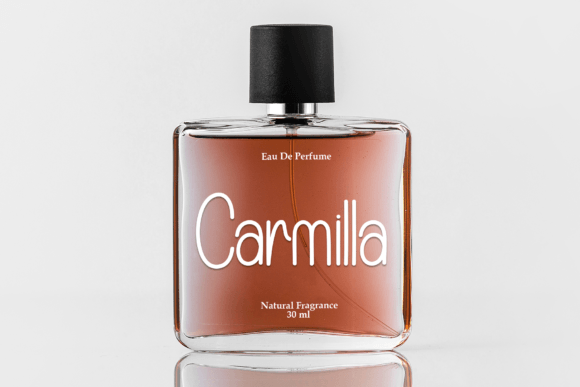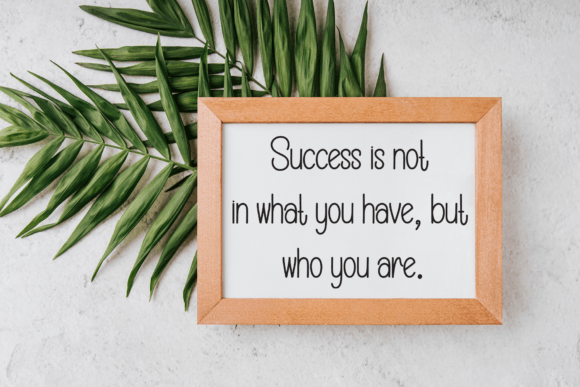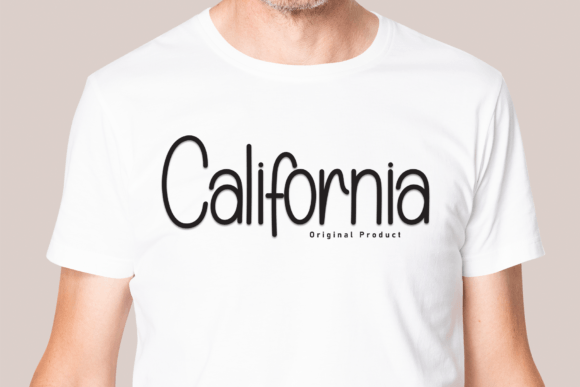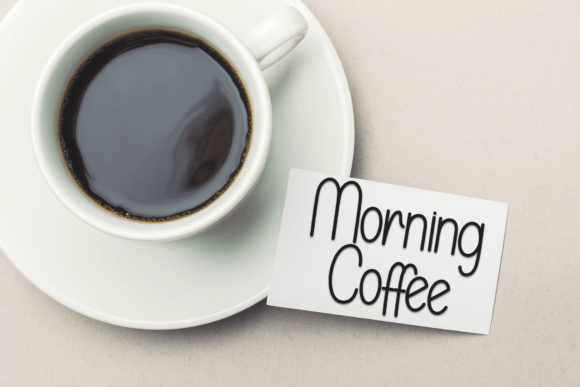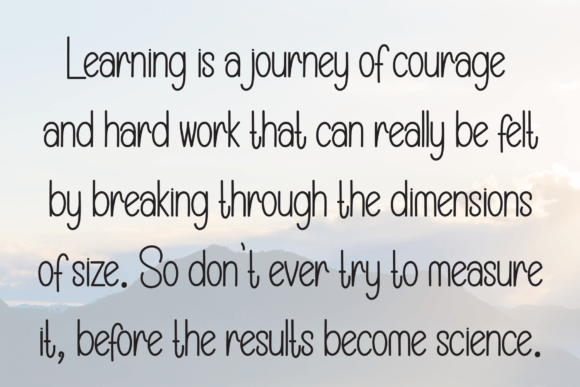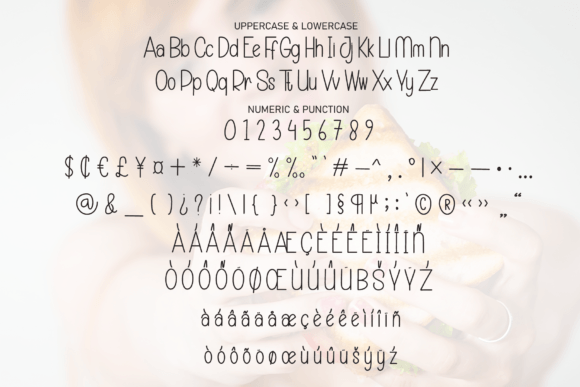
Discover the Delightful World of Happy Sandwich Font
Are you a fan of sandwiches and typography? Look no further than the Happy Sandwich Font, a unique and mouth-watering theme that combines the joy of freshly made sandwiches with the art of font design. In this article, we’ll dive into the world of Happy Sandwich, exploring its concept, features, and inspiration, as well as its appeal to designers and crafters.
What is Happy Sandwich?
Happy Sandwich is a delightful place where you can enjoy tasty, fresh sandwiches made just the way you like them. Each sandwich is made with care and a touch of happiness to brighten your day. The concept of Happy Sandwich is simple yet effective: to provide a welcoming and friendly environment where customers can indulge in a wide range of delicious sandwiches, from classic favorites to innovative creations.
The Birth of Happy Sandwich Font
The Happy Sandwich Font is an extension of this concept, bringing the joy and playfulness of the brand to the world of typography. The font is designed to evoke the feeling of happiness and satisfaction that comes with biting into a freshly made sandwich. With its rounded edges, soft curves, and cheerful vibe, the Happy Sandwich Font is sure to capture the hearts of designers, crafters, and sandwich lovers alike.
Features of Happy Sandwich Font
The Happy Sandwich Font boasts a range of features that make it a standout in the world of typography. Some of its key characteristics include:
- Rounded edges: The font’s rounded edges give it a friendly and approachable feel, perfect for creating a welcoming atmosphere in any design project.
- Soft curves: The soft curves of the Happy Sandwich Font add a touch of whimsy and playfulness, making it ideal for use in creative and artistic projects.
- Cheerful vibe: The font’s cheerful vibe is infectious, spreading happiness and positivity wherever it’s used.
The Happy Sandwich Font is a treasure trove of inspiration for designers and crafters. Whether you’re working on a branding project, creating a menu for a sandwich shop, or designing a craft project, this font is sure to spark your creativity. Here are a few ways you can use the Happy Sandwich Font to take your designs to the next level:
- Branding: Use the Happy Sandwich Font to create a friendly and approachable brand identity that will resonate with your target audience.
- Menus and signage: The font’s cheerful vibe and rounded edges make it perfect for use in menus, signage, and other visual elements for sandwich shops and cafes.
- Craft projects: Add a touch of whimsy to your craft projects, such as handmade cards, gift tags, and scrapbooking pages, with the Happy Sandwich Font.
In conclusion, the Happy Sandwich Font is a delightful and inspiring theme that combines the joy of sandwiches with the art of typography. With its rounded edges, soft curves, and cheerful vibe, this font is sure to capture the hearts of designers, crafters, and sandwich lovers alike. Whether you’re looking to create a friendly brand identity, design a menu for a sandwich shop, or add a touch of whimsy to your craft projects, the Happy Sandwich Font is the perfect choice.